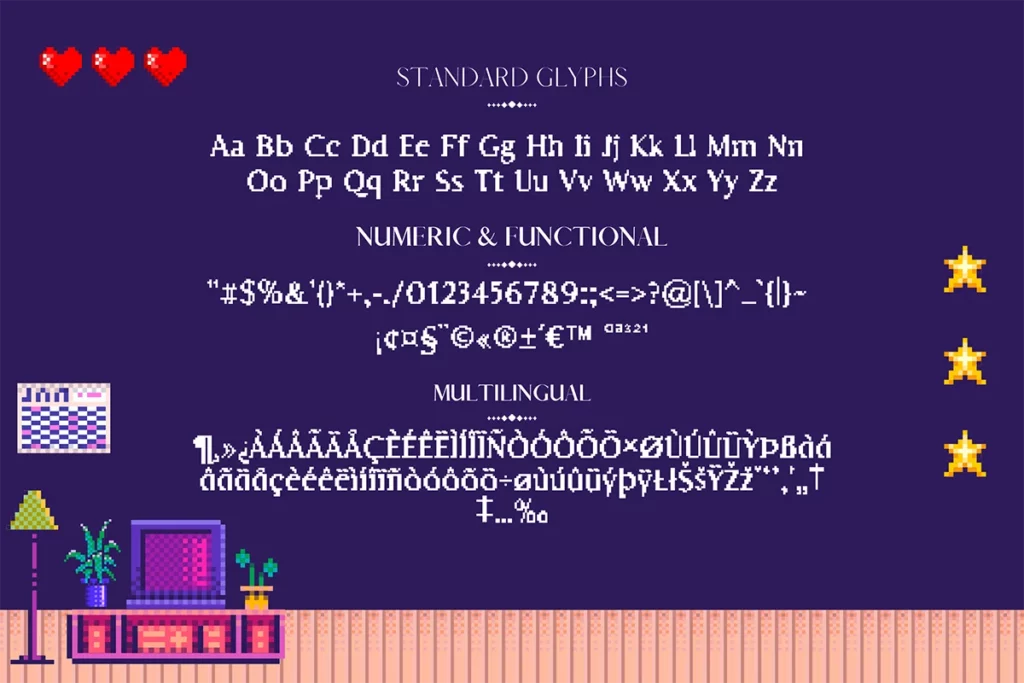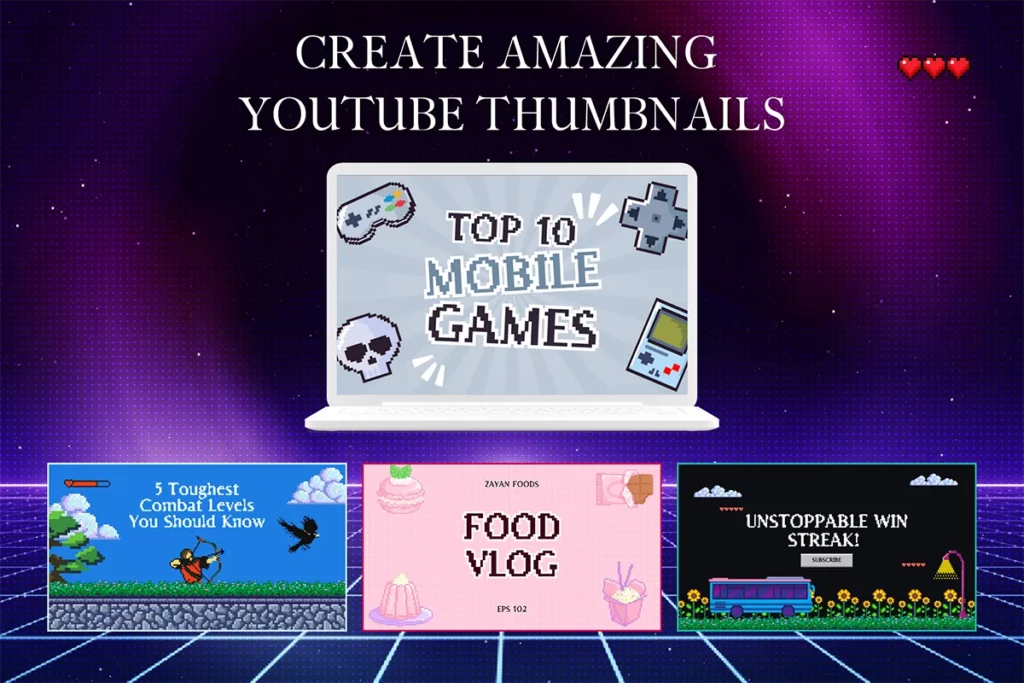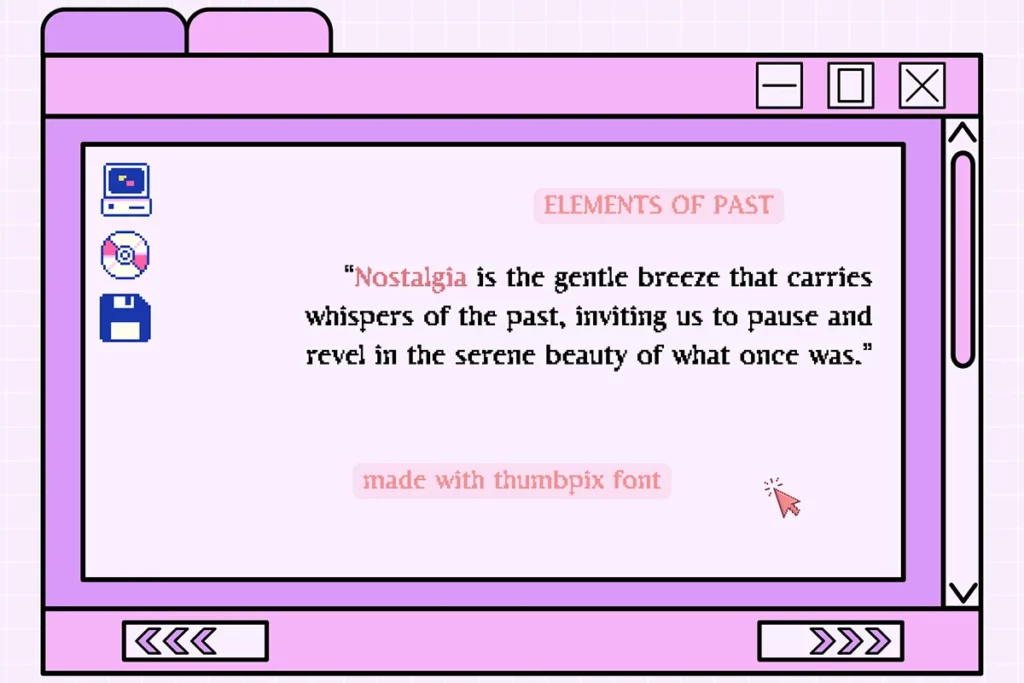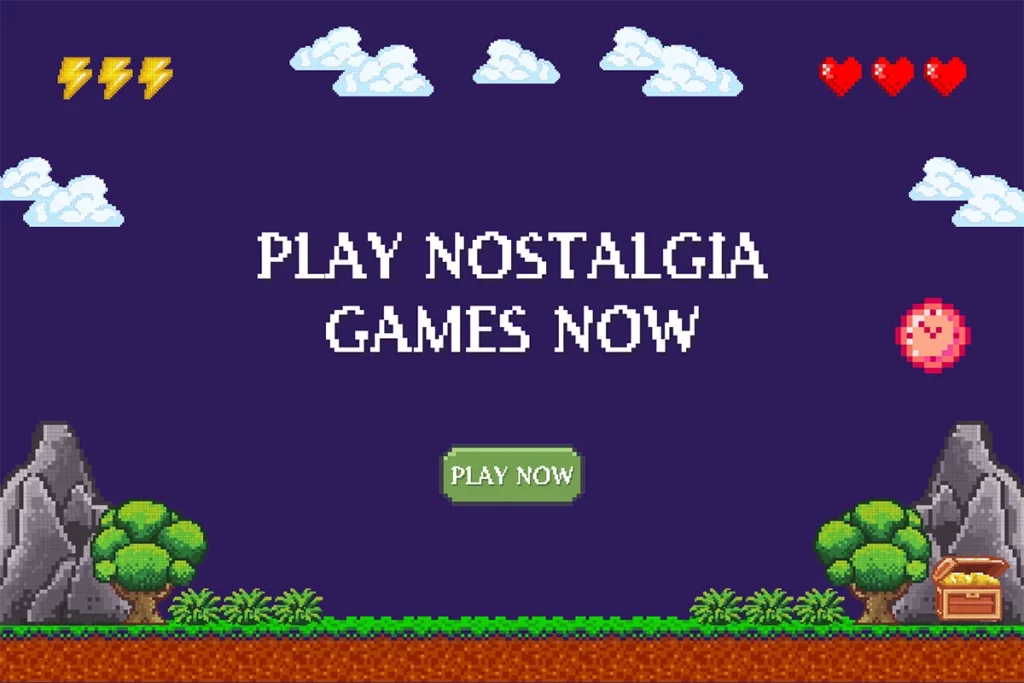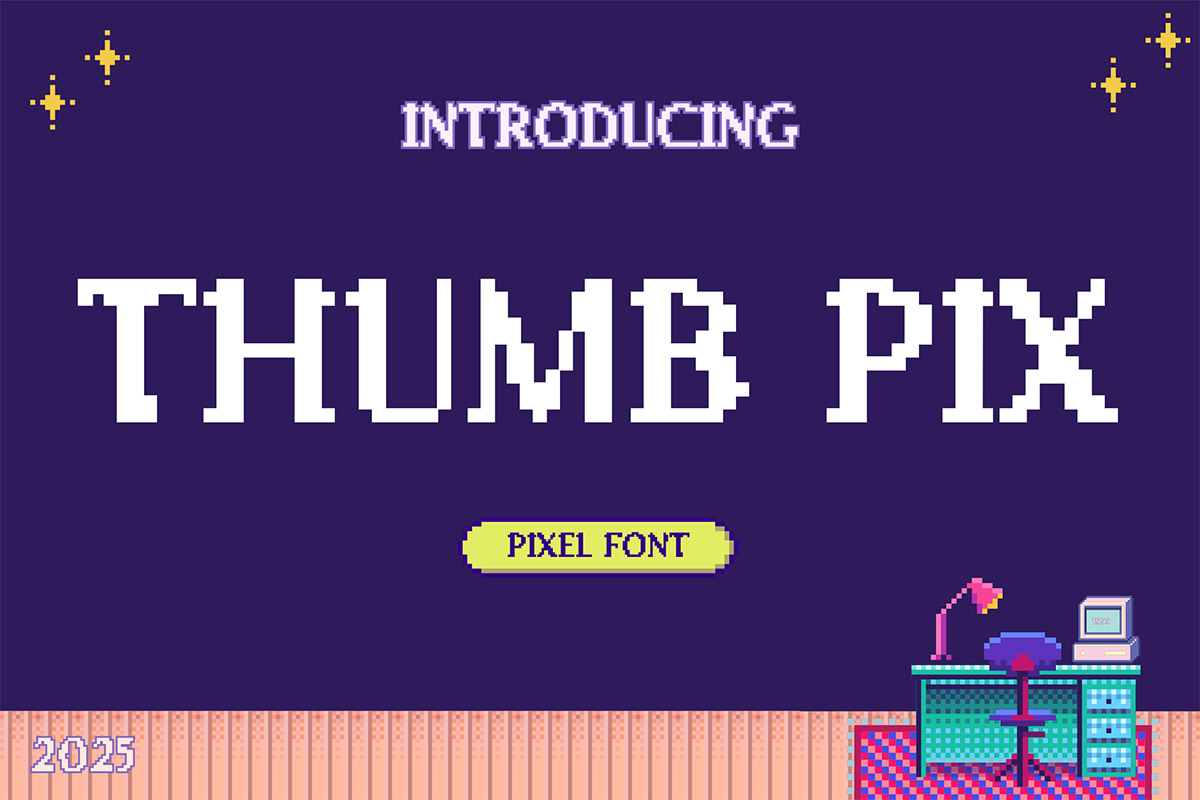
Thumbpix Pixel Font
Introducing Thumbpix Pixel Font, a bold and bubbly 8-bit typeface designed to make your text stand out. This font is packed with everything you need to build striking titles, vibrant UIs, nostalgic posters, and more.
Inspired by classic arcade vibes but crafted for modern design needs, Thumbpix Pixel is good for creatives looking to blend retro flair with pixel precision. Thumbpix font is perfect for retro game, old school, t-shirt design, watermark, branding, logos, apparel, quotes, product packaging, or anything which needs a font with a natural brush taste.